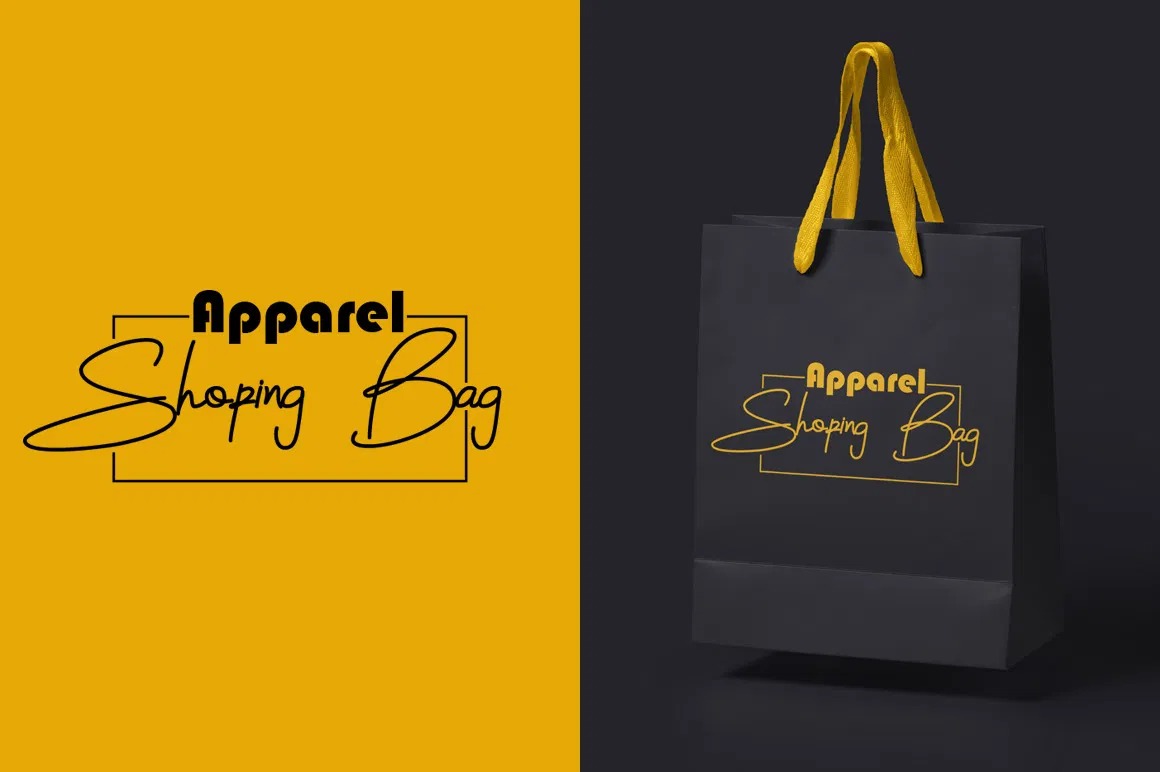
The Sunset Font
The Sunset Handwritten Font
It’s a script font created by Graphix Line Studio with natural hand drawn, clean mono-line stroke, slant and fun character with lowercase alternate and ligatures. This font is good for logo design, Social media, Movie Titles, Books Titles, a short text even a long text letter and good for your secondary text font with sans or serif.